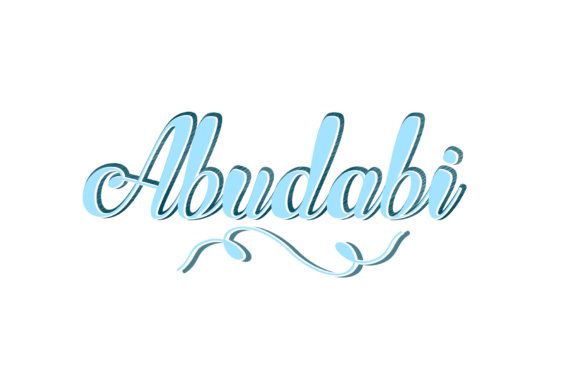
The Abudabi Font: A Comprehensive Guide for Designers and Creatives
Abudabi Font: An Honest Review
The Abudabi font is a beautiful, connected script typeface that includes three font styles: Regular, Bold, and Stone. Here’s what I love about it:
- ✨ Elegant and sophisticated design, perfect for luxury brands and high-end projects
- ✅ Versatile, with three font styles to suit different design needs
However, there are a few quirks to be aware of:
- 🤔 Limited character set, which may not be suitable for projects requiring a wide range of special characters
- ⚠️ Not ideal for body text, as it can be a bit too ornate for long paragraphs
- Experiment with the different font styles (Regular, Bold, and Stone) to find the perfect look for your design.
The Story Behind Abudabi Font
The Abudabi font was designed with the goal of creating a elegant and sophisticated script typeface that would be perfect for luxury brands and high-end projects. The designer aimed to create a font that would be both highly legible and visually stunning, with a unique connected style that would set it apart from other script fonts.
| Font Name | Abudabi Font |
| Author | Etewut |
| What is the Abudabi font? | The Abudabi font is a connected script typeface that includes three font styles: Regular, Bold, and Stone. |
| Is the Abudabi font suitable for body text? | No, the Abudabi font is not ideal for body text, as it can be a bit too ornate for long paragraphs. |